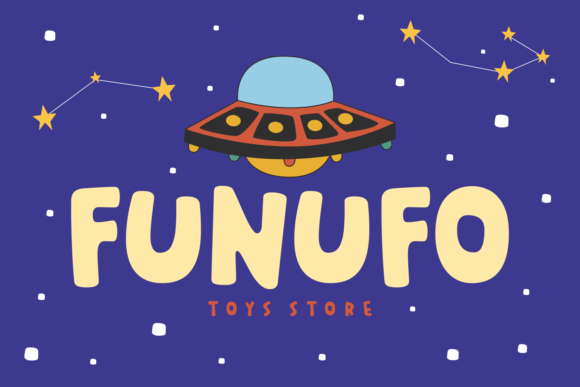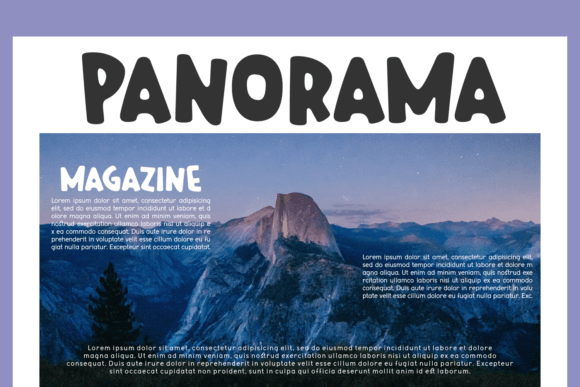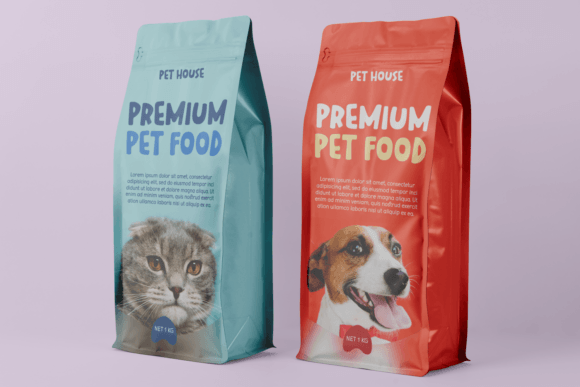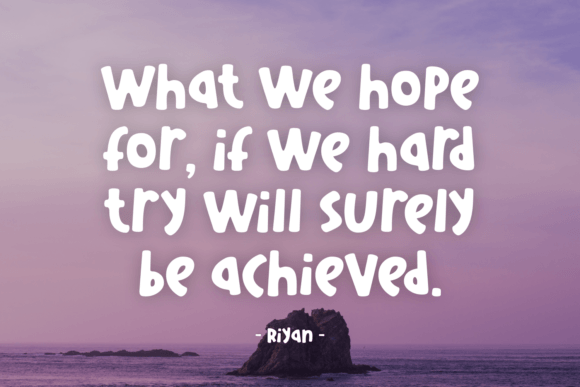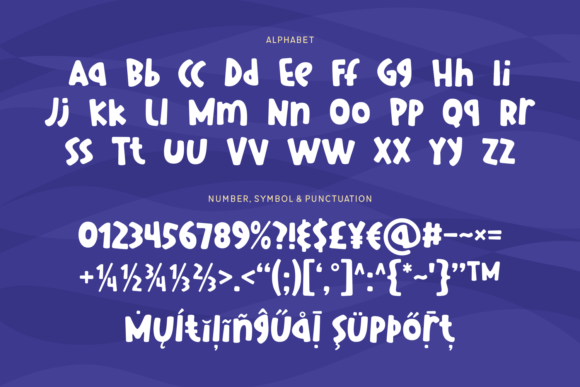
Introduction to Having Funtasy Font
Having Funtasy is a playful, thick, and joyful display font.
Create bold and striking typography with this charming typeface that has the potential to elevate any creation Use it for product packaging, posters, quotes, invitations, and more.
Key Features of Having Funtasy Font